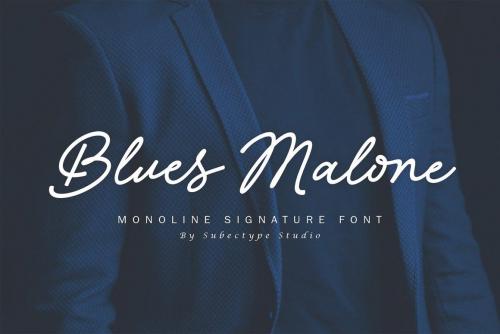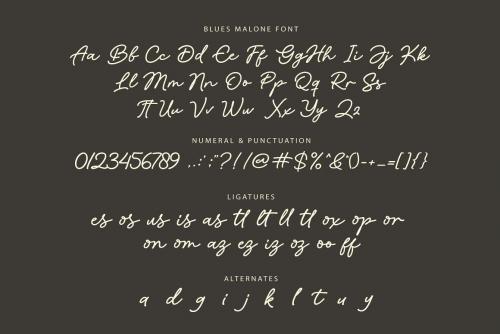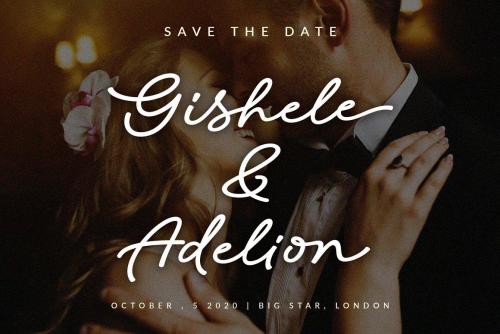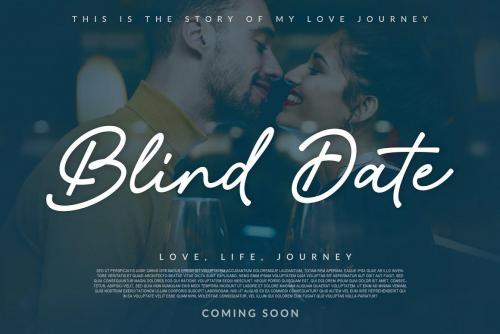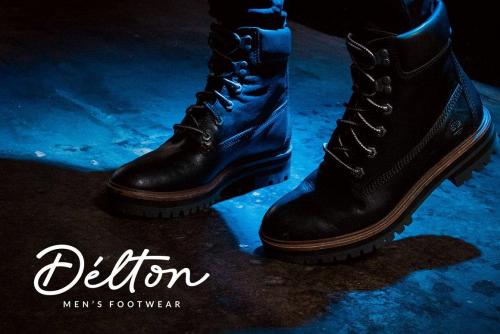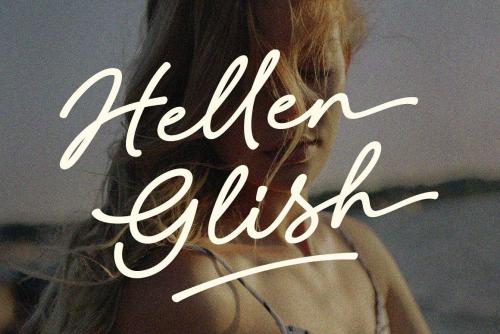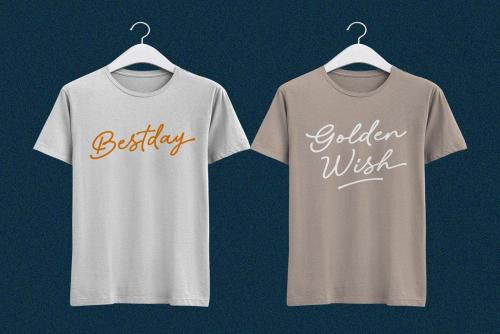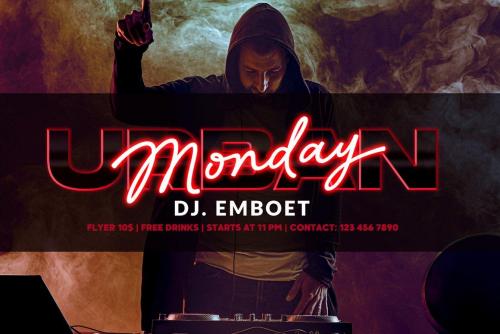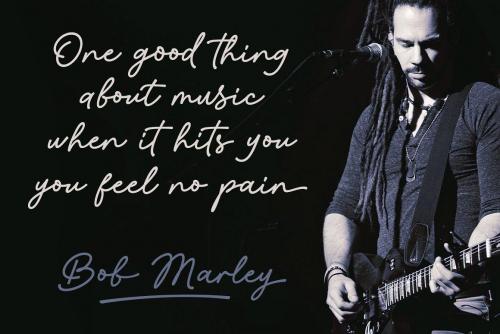
Blues Malone is a monoline signature font with an elegant style. It has good readability and is perfect for logos, invitations, wedding, signatures, Branding, clothing, headline, and much more! Blues malone comes with ending swash alternate which will make your design more beautiful and elegant.
- Designer: Subectype Studio